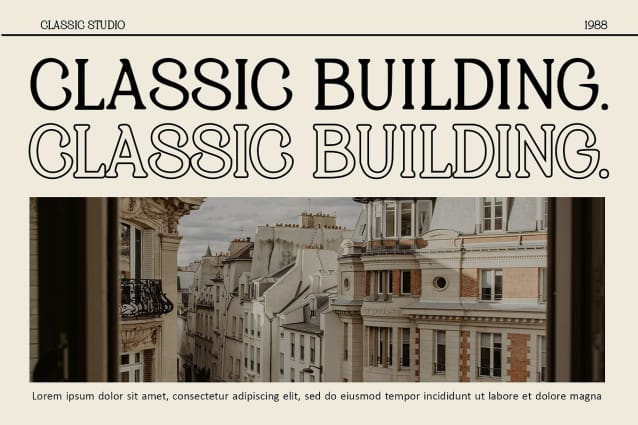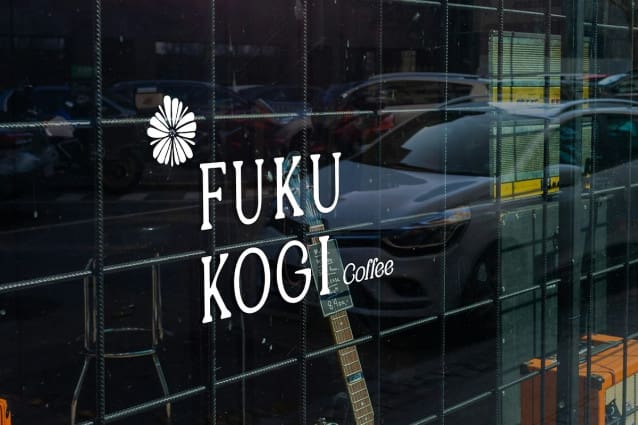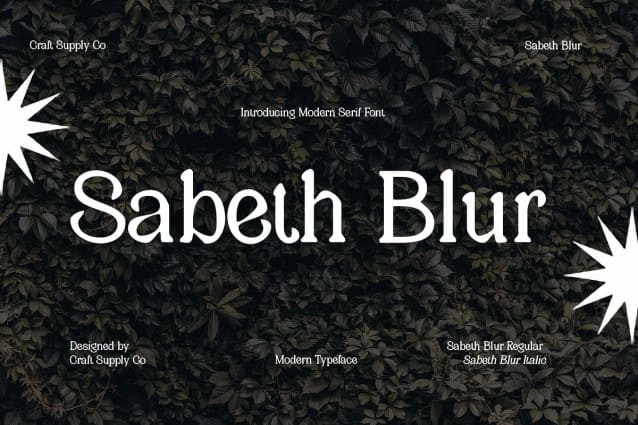
Sabeth Blur Font is a modern serif font characterized by its minimalist and elegant shape, expertly crafted to deliver a refined and sophisticated aesthetic. Its clean lines and balanced proportions embody a contemporary style that effortlessly blends classic influences with modern design principles. This font is an ideal choice for projects that aspire to convey a sense of timeless elegance while maintaining a fresh and updated look.
Luxurious Blur Effect for Enhanced Visual Appeal The unique blur effect applied to Sabeth Blur adds a layer of depth and visual interest, creating a smooth and luxurious impression. This effect softens the fontâs edges and enhances its overall sophistication, making each letter feel like a work of art. The blur not only elevates the fontâs aesthetic but also draws the viewerâs eye, providing an inviting and engaging reading experience that stands out in any design context.
Versatile Applications for Exclusive Branding and Editorial Work Sabeth Blur excels in a variety of design applications, from exclusive branding and high-end editorial layouts to product packaging that requires a graceful and classy touch. Its minimalist design, combined with the luxurious blur effect, makes it suitable for projects where elegance and modernity are paramount. Whether itâs for a luxury brand identity or a contemporary magazine spread, this font adds a touch of sophistication that captivates and impresses.